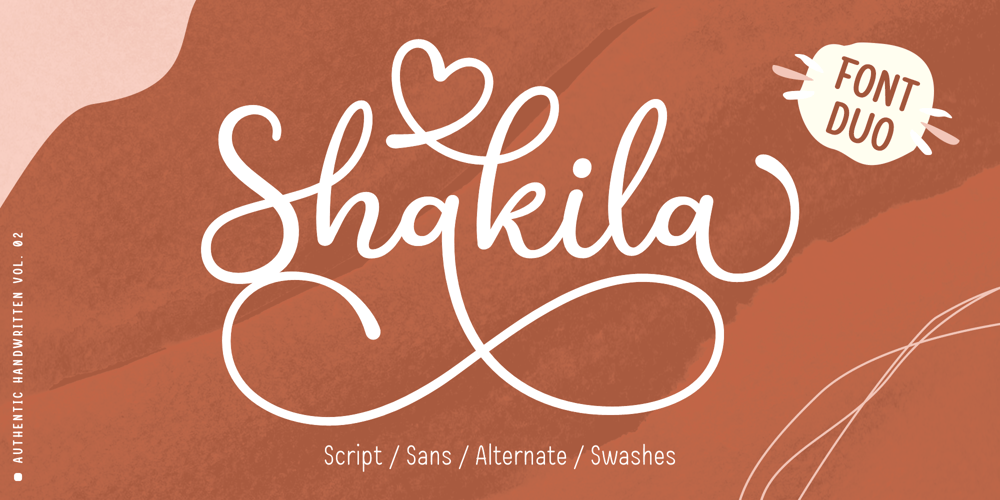
Shakila Font Family was designed by Alif Nuryasin and published by Alifinart Studio. Shakila contains 10 styles and family package options. Shakila Script is a handwritten font created at the end of March 2021. It is a unique bold font with a pretty and charming casual style with many variants of beautiful swashes, as well as an alternative to capital letters.Shakila is a lovely and delicate font duo (script and sans serif), that exudes elegance and class. This font was particularly crafted for those who need a beautiful and refreshing look to their designs. Also, this font is perfect for branding projects, logo, product designs, invitation cards, wedding cards, stationery designs, advertisements, label, photography, blogging, social media or watermark.Key Features:- Multilingual Accents- Alternative capital letters- Stylistic Alternates up to 20 choices- Has a heart connected feature for a-z and A-Z letters- Available shortcut for Stylistic Alternate by simply adding “period” (.) and “number” (1-20) to each letter.- Has lots of ligatures so the letters connect well together- Has OpenType and PUA Encodes features.This font has a total of 885 glyphs, including capital letters, uppercase alternates, lowercase, numeral and punctuation, multilingual accents, beginning and ending swashes for lowercase, and includes a large number of stylistic alternates and heart swashes (for lowercase-lowercase and uppercase-uppercase).The advantage of the Shakila Script font compared to other fonts is that the alternative capital characters are in 1 font file, so it will make it easier for you to work. Therefore, you are free to choose it as you like, especially this font has the OpenType and PUA Encodes features which means you can access all of the glyphs and swashes with ease.As I mentioned earlier, Shakila Script has a large number of Stylistic Alternates features, up to 14 options for letter a-z and up to 20 options for letter b d h k l. In fact, there is also a swash feature in the form of a connected for the combination of each lowercase-lowercase and uppercase-uppercase letters.Interestingly, you can activate all Stylistic Alternates that are owned by each letter, just by typing; letter + period + number. For example: a.1 a.2 a.3 or b.1 b.2 b.3 and so on.As for activating the heart connected for each letter a-z or A-Z is quite easy. Namely by simply typing; letter + underscore + letter. For example: a__a or A__A and so on.Shakila Script is a Font Duo pack that pairs with Shakila Sans. The two were created at about the same time, but made in separate file packages. The reason I created this font duo is to make your projects more harmonious and unique.At the end of the sentence, Shakila Font Duo is a very authentic and amazing.If there are things you want to ask, don’t hesitate to contact my email.For complete details, please visit my Behance profile.Alifinart Studioalifinart@gmail.comThank you.